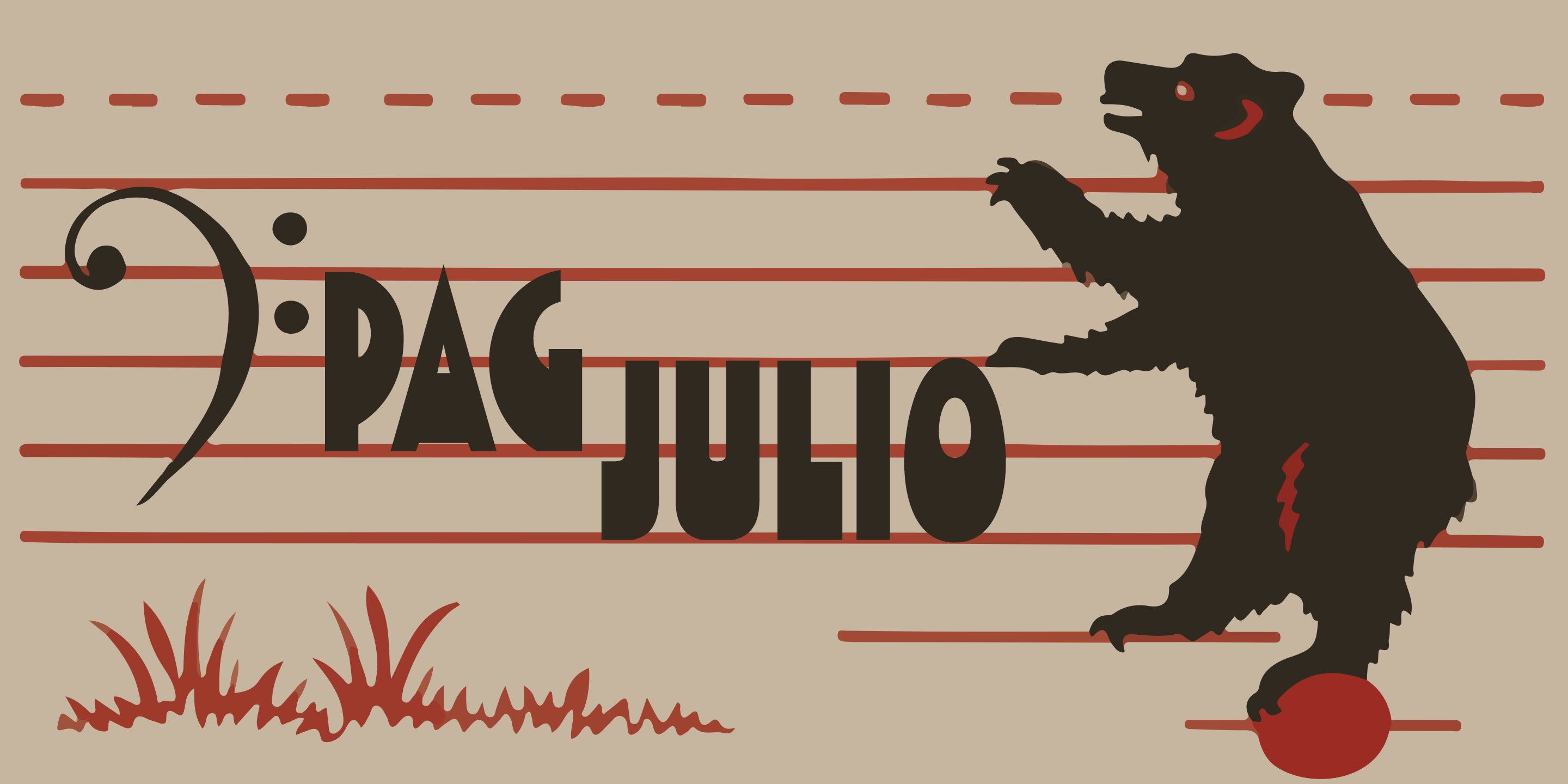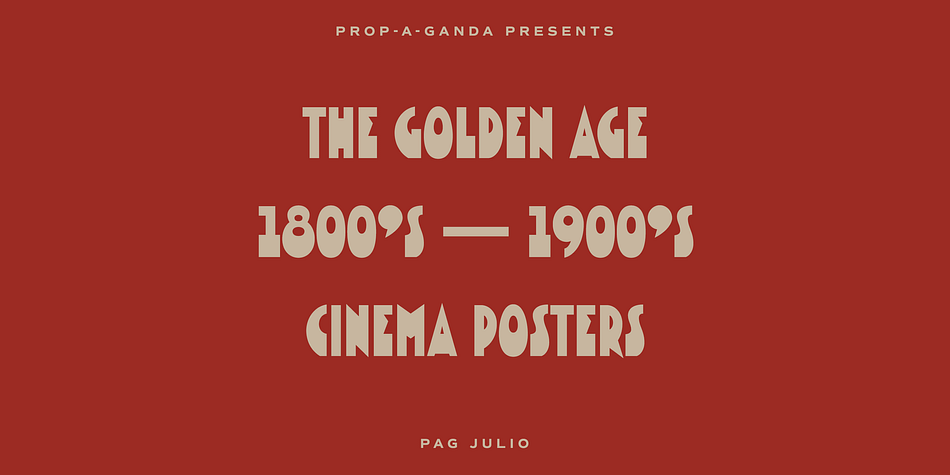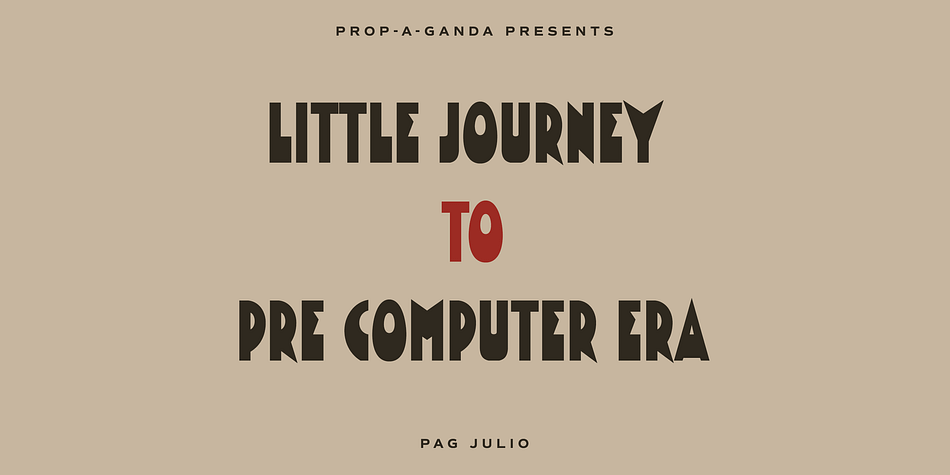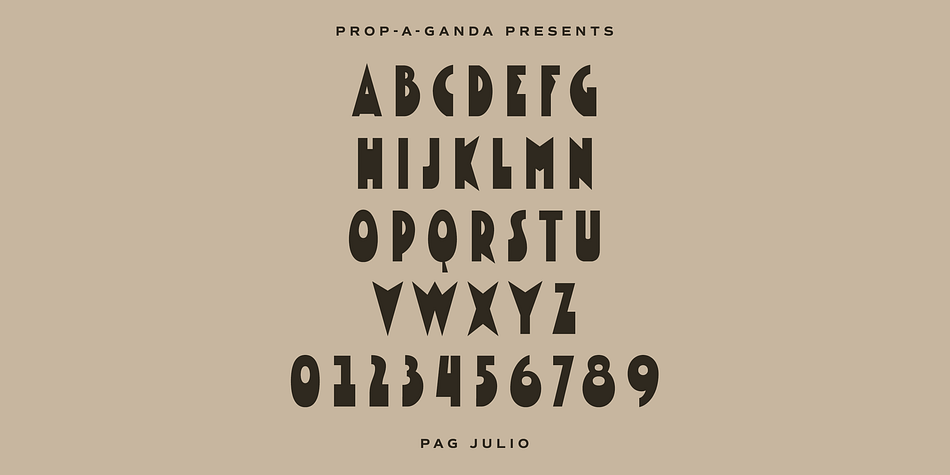
PAG Julio is a retro font published by Dharma Type.
Prop-a-ganda(PAG) offers retro-flavored fonts inspired by lettering on retro propaganda posters, retro advertising posters, retro packages all the world over. This is perfect font for your retrospective project.
PAG Julio is a eye-catching, counter-contrast font with retro touch. This cool and cute font woks best for display uses, headlines, branding, print, and web design projects.